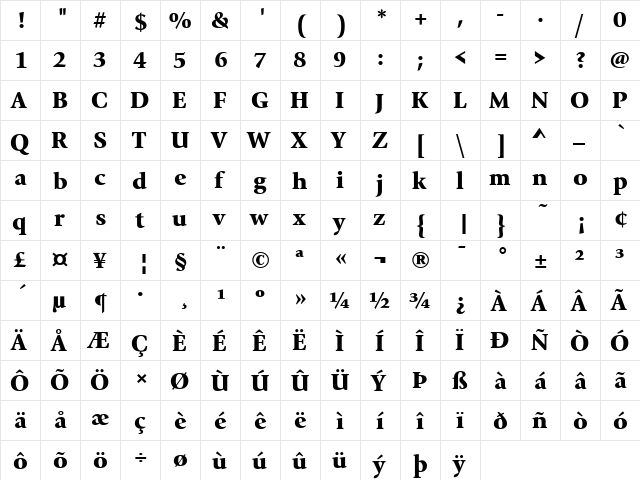
Giovanni Itc T Regular
Design Context for Giovanni Itc T Typeface
Giovanni Itc T offers clean, dependable letterforms without strong stylistic allegiance, making it a practical choice for designers who need flexibility.